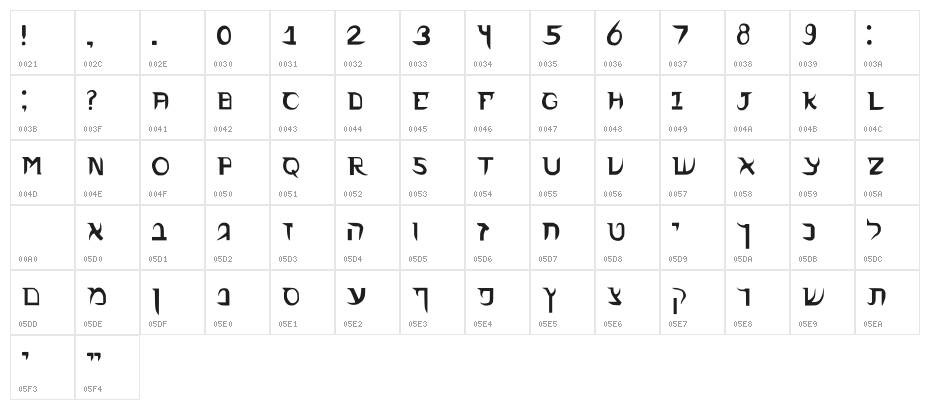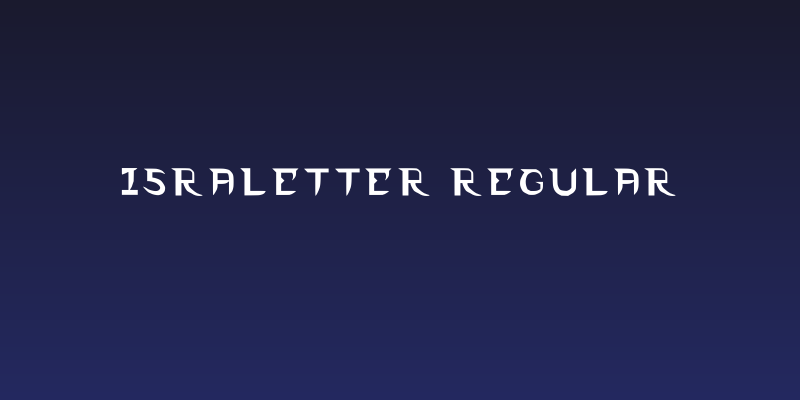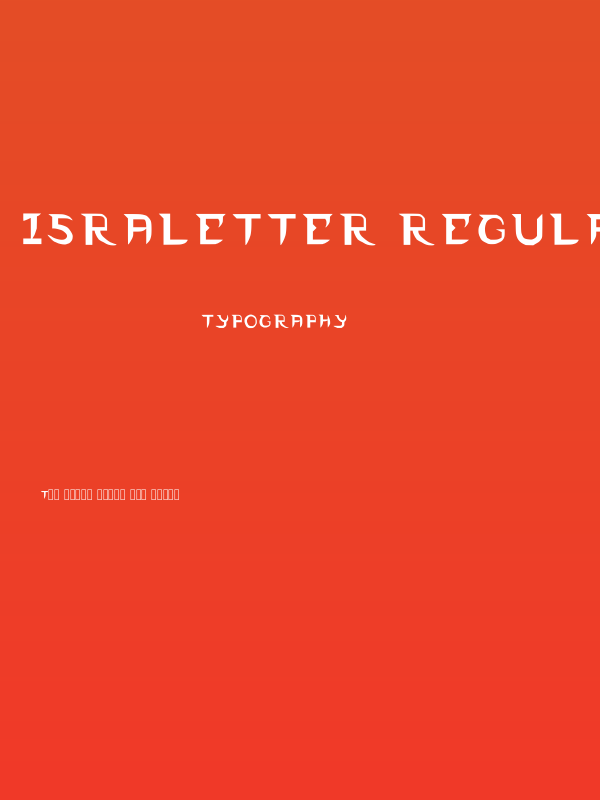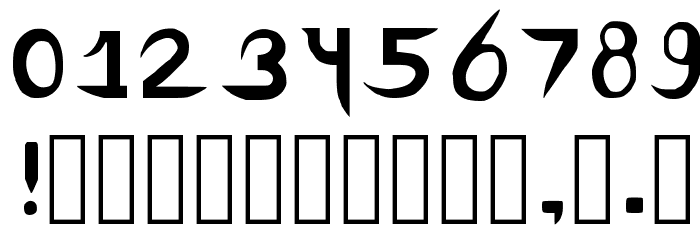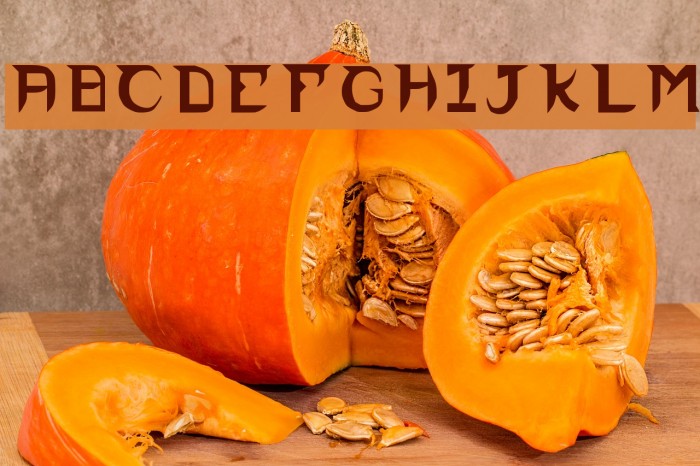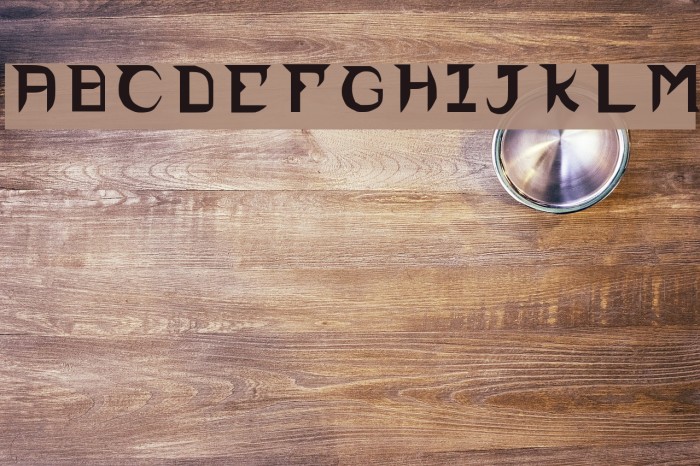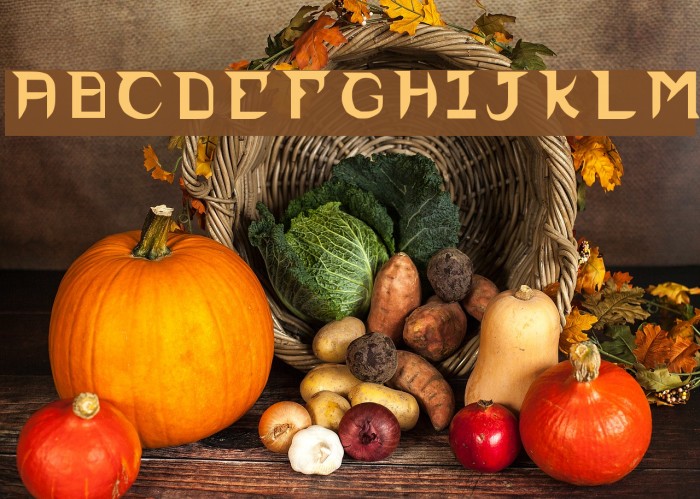
Israletter Regular Font
Israletter Regular Description
This font features a bold and striking design with sharp, angular edges and a geometric structure. The uppercase letters have a strong presence, with each character exhibiting unique cuts and curves that add a dynamic flair. The numerals follow a similar style, maintaining the bold and angular aesthetic. The special characters are designed to complement the overall look, making them suitable for attention-grabbing headlines or logos. The font's distinct style makes it ideal for projects that require a modern and edgy appearance.
| Proposed Projects | Ideal for branding, logos, posters, and any design requiring a modern, edgy look. |